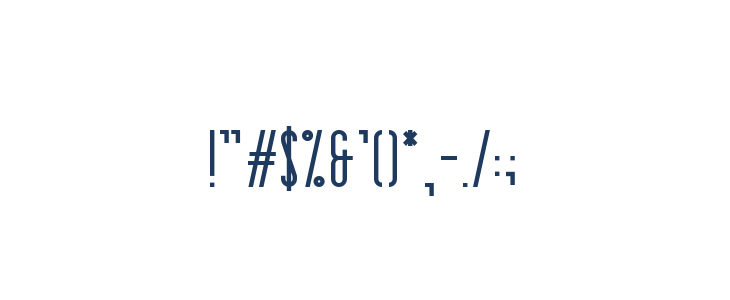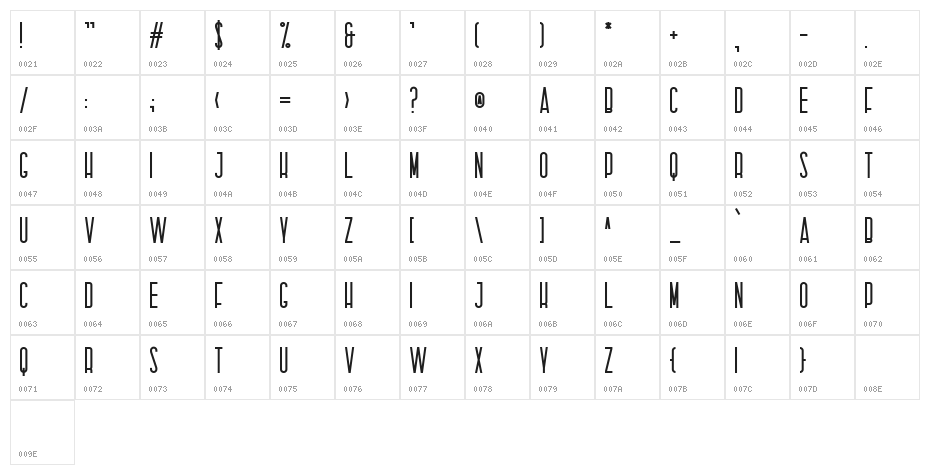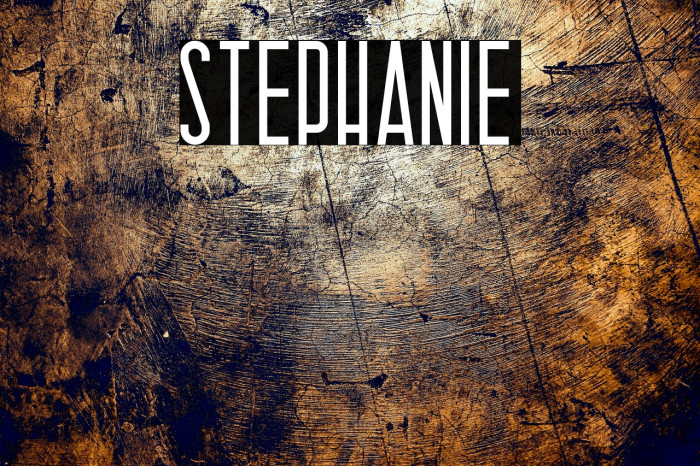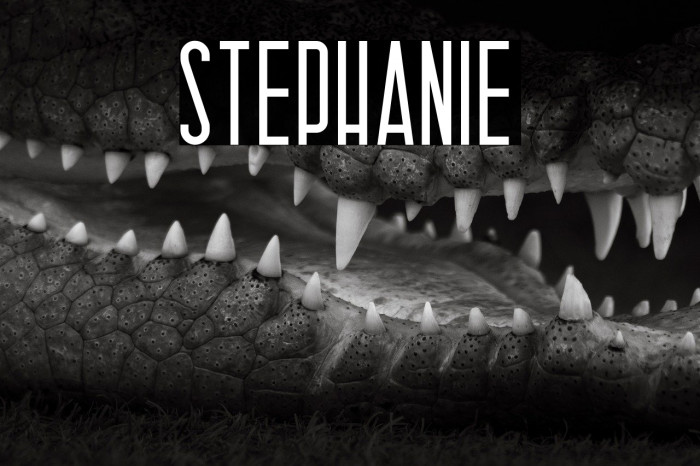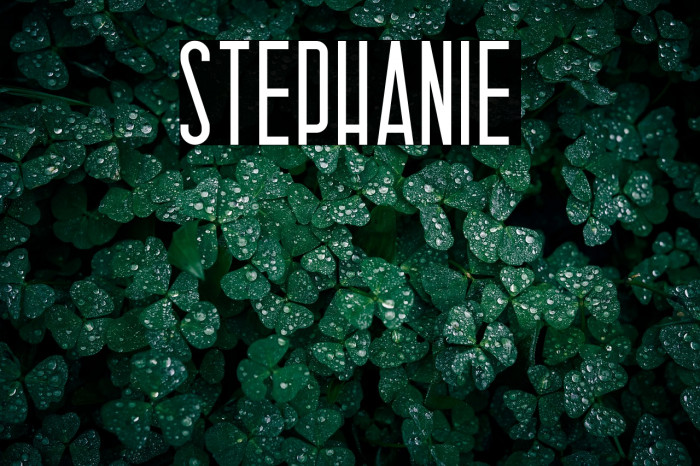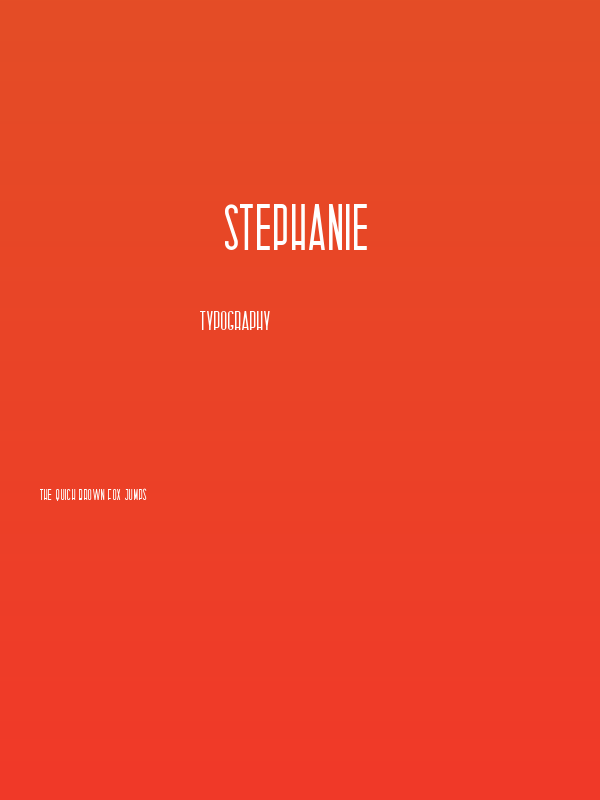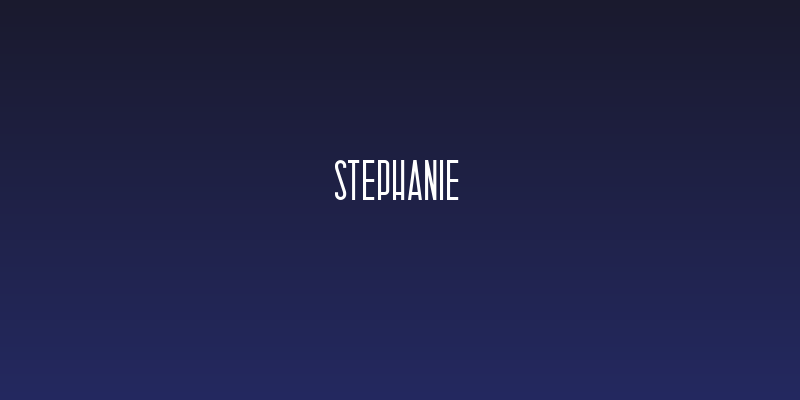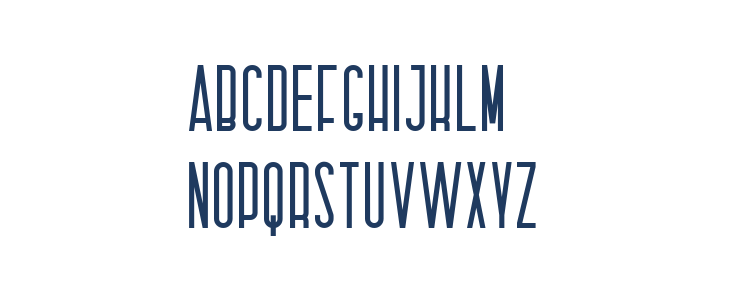
Stephanie Font
Stephanie Description
This font features a tall, narrow design with clean, straight lines and minimal curves, giving it a modern and sleek appearance. The uppercase letters are uniformly aligned with consistent height, while the lowercase letters maintain a similar style, ensuring readability and uniformity. The numerals and special characters are designed to complement the alphabet, maintaining the same narrow and elongated structure. This font's overall aesthetic is both contemporary and versatile, making it suitable for various design applications.
| Proposed Projects | Ideal for branding, posters, headlines, and any design project requiring a modern and sleek typeface. |